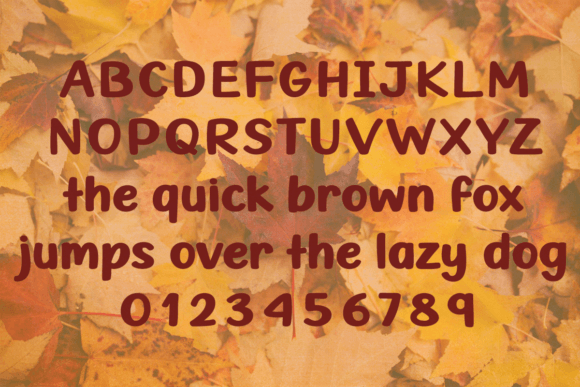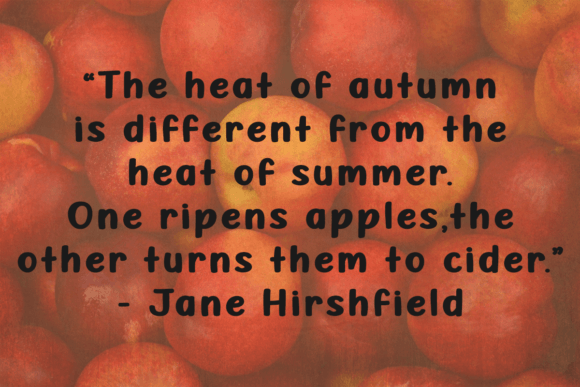
Introduction to Ready for Fall Font
“Ready For Fall” is a bold handwritten font that brings the cozy charm of autumn to your designs.
With its thick strokes and natural, hand-drawn style, this font adds warmth and personality to any project Perfect for seasonal invitations, greeting cards, social media posts, and so much more.
Key Features of Ready for Fall Font
Why Choose Ready for Fall Font?
Ready for Fall Font offers exceptional quality and versatility, making it a valuable addition to your design toolkit. Whether you’re creating for personal projects or commercial use, Ready for Fall Font delivers professional results.